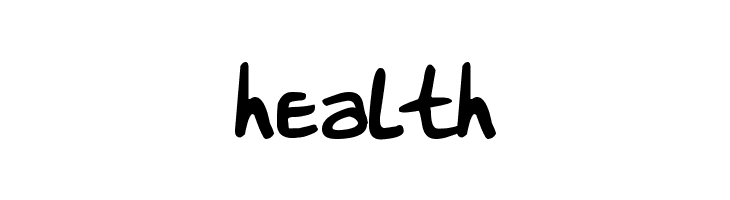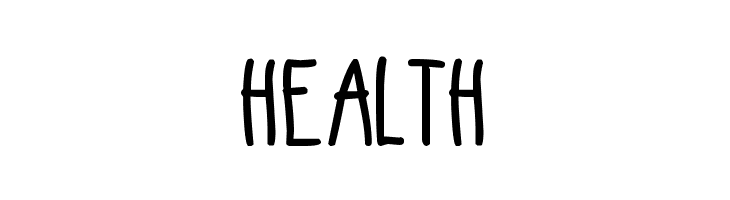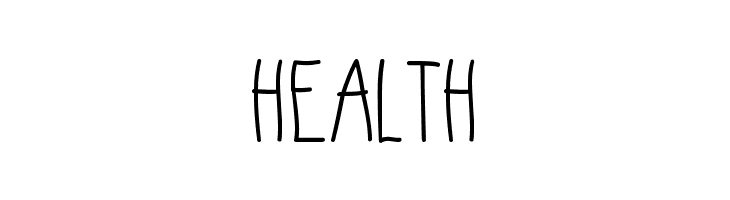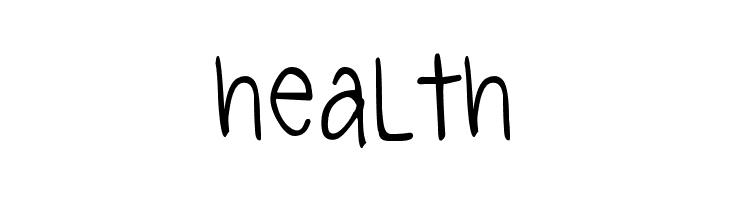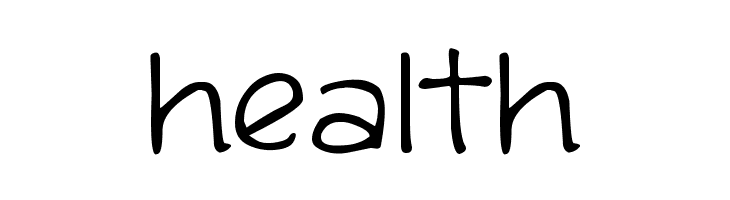
A playful, handwritten font with a whimsical and friendly style.
A playful, casual handwritten font with smooth curves and rounded edges.
A playful, handwritten font with tall, narrow letters and a casual appearance.
A bold, handwritten font with a playful and whimsical style.
A playful and casual handwritten font with a friendly vibe.
A playful, casual handwritten font with fluid strokes and a dynamic style.
A playful, whimsical handwritten font with uneven strokes and a casual style.
A playful, casual handwritten font with a friendly vibe.